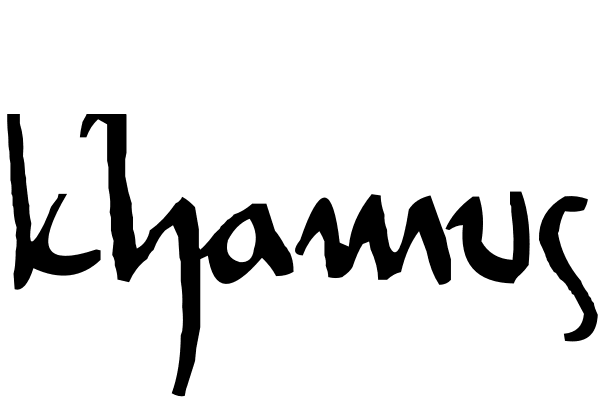
Khamus
Within the designer of this font there exists a sort of instinctive urge to express himself on the way to, how he would say, perform an exorcism. Therefore he adheres to his more visceral feelings and unites them with both his love of well-designed...